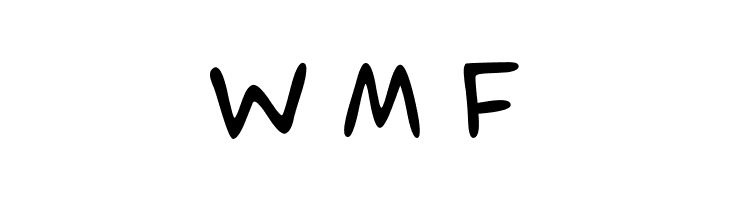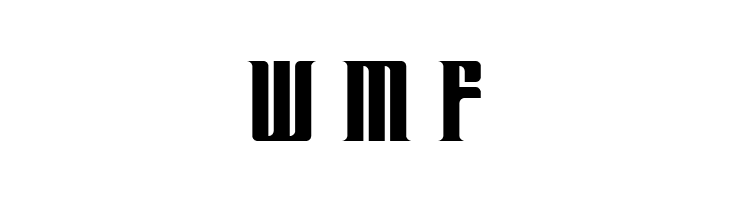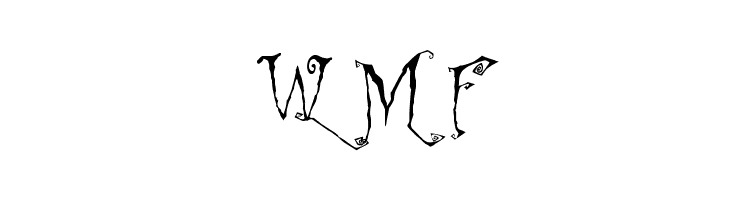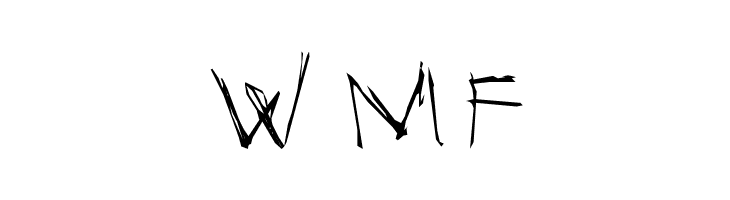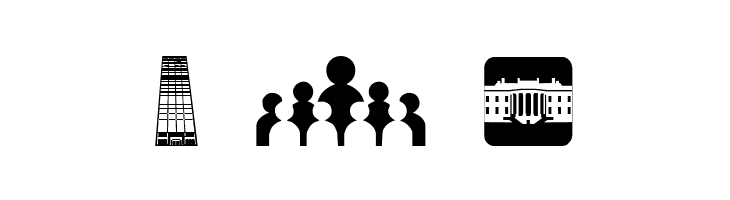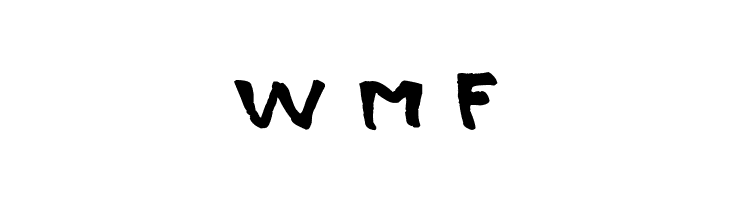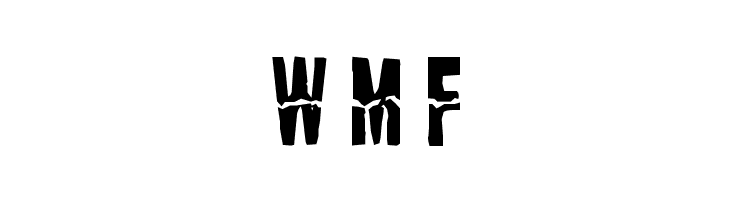
A display font made up of illustrated human faces and characters.
A bold, distressed font with a cracked, industrial appearance.
A bold, expressive handwritten font with thick, uneven strokes and a playful style.
A whimsical, decorative font with spiral embellishments and a hand-drawn style.
Iconic font with legal and governmental symbols.
A playful, hand-drawn font with rounded, irregular letterforms.
A bold, slab serif font with a vintage yet modern appeal.